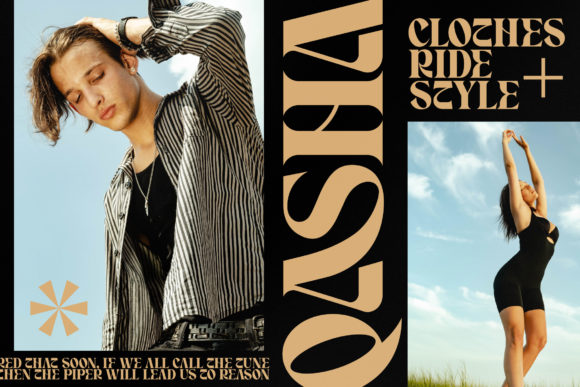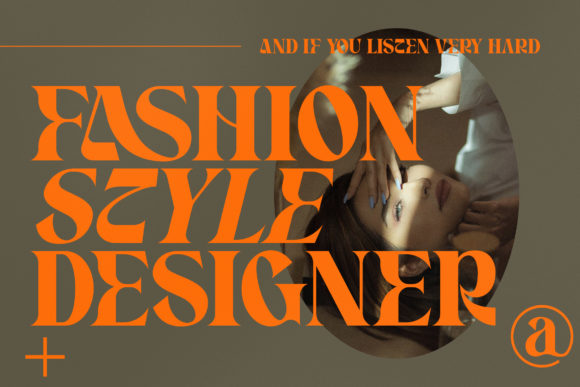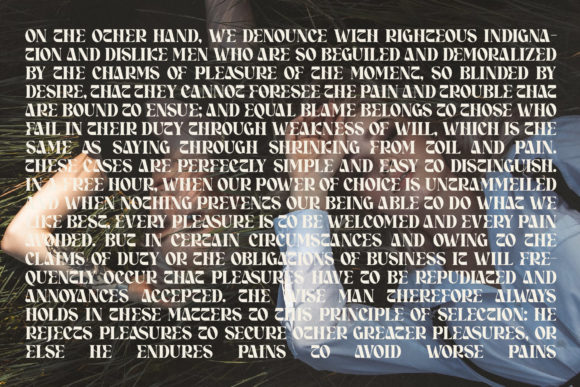
The Perfect Touch: Unveiling the Crasey Font
Have you ever been stuck on a design project, searching for that elusive font that brings your vision to life? It’s a frustrating feeling, but one that we’ve all been there. You scroll through countless options, only to find that they’re either too generic or just don’t quite fit the tone you’re aiming for.
Enter the Crasey Font – a stylish and distinct serif font designed to elevate your designs and leave a lasting impression. Whether you’re working on a product packaging project, creating a brand identity, or simply want to add a touch of sophistication to your social media graphics, Crasey Font is the perfect choice.
For designers, Crasey Font is a valuable asset that can help take their work to the next level. Its unique blend of elegance and playfulness makes it an ideal solution for a wide range of design applications, from magazine covers to wedding invitations.
Crasey Font Key Features
- Unique Characteristics: The font features a unique blend of modern and vintage elements, with distinctive letterforms and ornaments that add a touch of elegance and sophistication to any design.
- Font Width: The font has a medium to wide width, making it suitable for use in titles, headings, and body text, while also providing ample space for ligatures and ornaments.
Crasey Font Review
I recently had the chance to work with the Crasey font, and I must say it’s an interesting addition to any design project. Here’s my honest take on what it brings to the table.
- Unique Character Set: Crasey font offers a quirky character set that can add a touch of whimsy to your designs. It’s perfect for those looking to break away from the standard sans-serif fonts.
- Good for Display Text: Crasey font looks great in larger font sizes, making it suitable for headings and titles.
- Fun and Playful: The font’s eccentric design makes it a great choice for projects that require a lighthearted tone.
- Lack of Legibility: In smaller font sizes, the Crasey font can become difficult to read, making it less suitable for body text.
- Not Ideal for Long Text: Due to its unique design, Crasey font may not be the best choice for large blocks of text, as it can be tiring to read.
Crasey font is a great addition to any designer’s toolkit, but it’s essential to use it judiciously. It’s perfect for projects that require a touch of personality and playfulness, but not for those that need a clean and legible font. Overall, I think Crasey font is a great choice for designers who want to add some visual interest to their work.
The Crasey Font is ideal for use in designs that require a playful, handwritten feel. It’s commonly used for:
– Blog posts and articles
– Invitations and event promotions
– Infographics and illustrations
To get the most out of the Crasey Font, try combining it with other fonts, using it in bold or italic styles, and experimenting with different font sizes and colors.
Alternatives to Crasey Font for Designers
Playfair Display is an elegant, high-end serif font ideal for luxury brands, high-end fashion, and sophisticated publications. Its intricate details and ornate flourishes make it perfect for adding a touch of luxury and sophistication to your designs.
Comparison to Crasey Font: While both fonts have a high-end feel, Playfair Display is more ornate and luxurious, making it suitable for high-end brands and publications. Crasey Font, on the other hand, has a more classic and timeless feel.